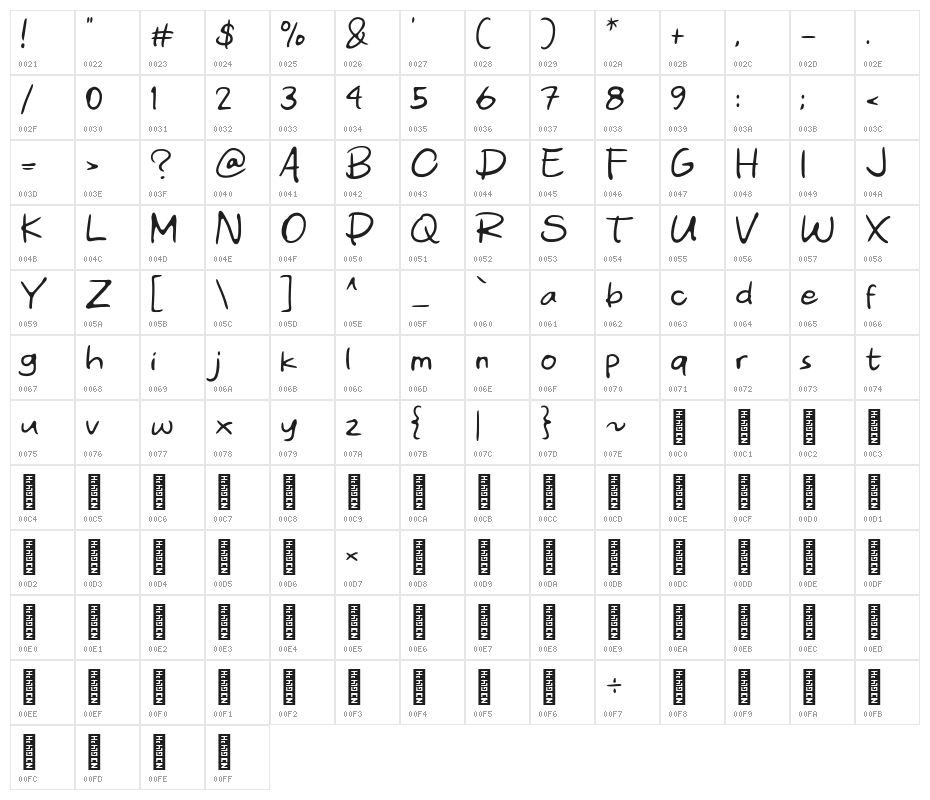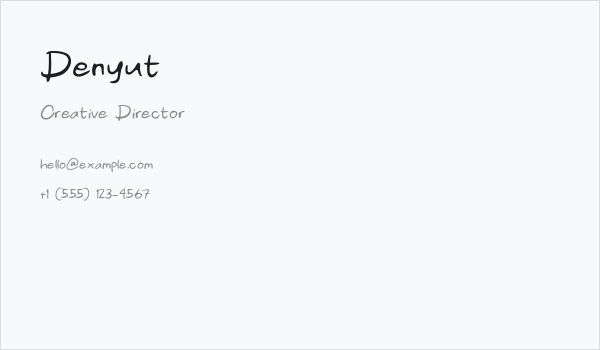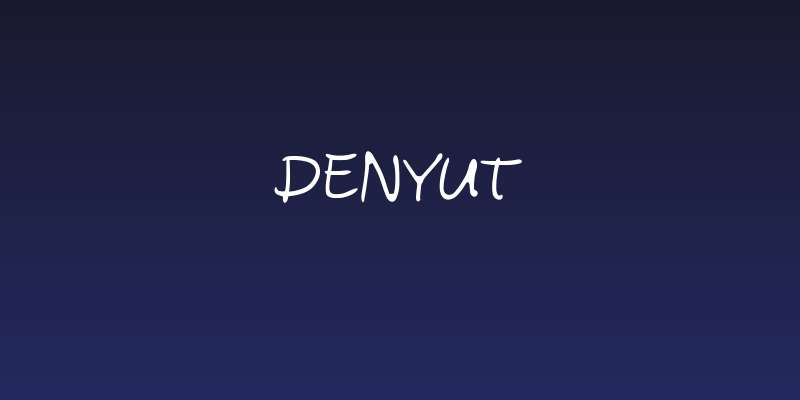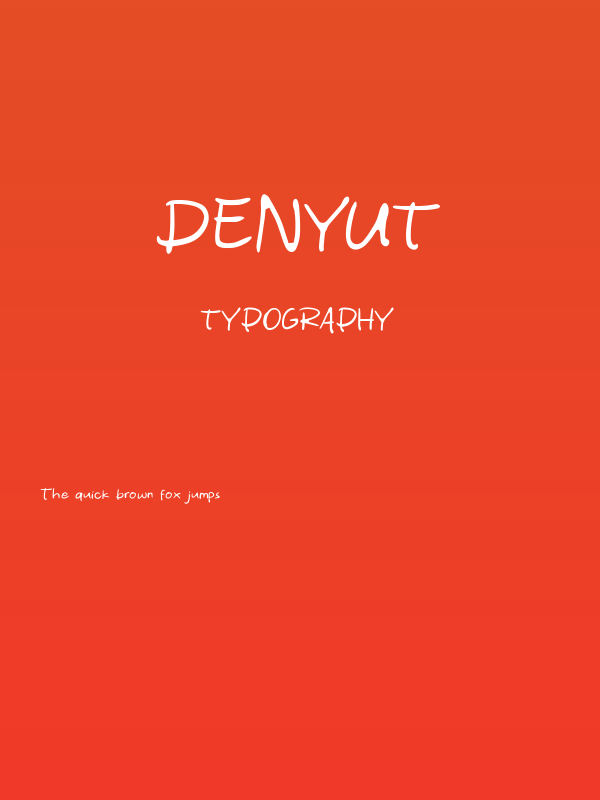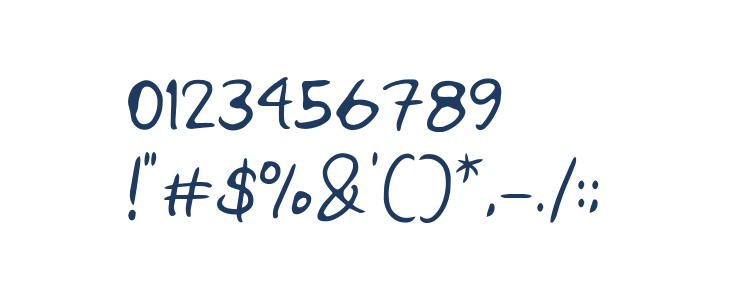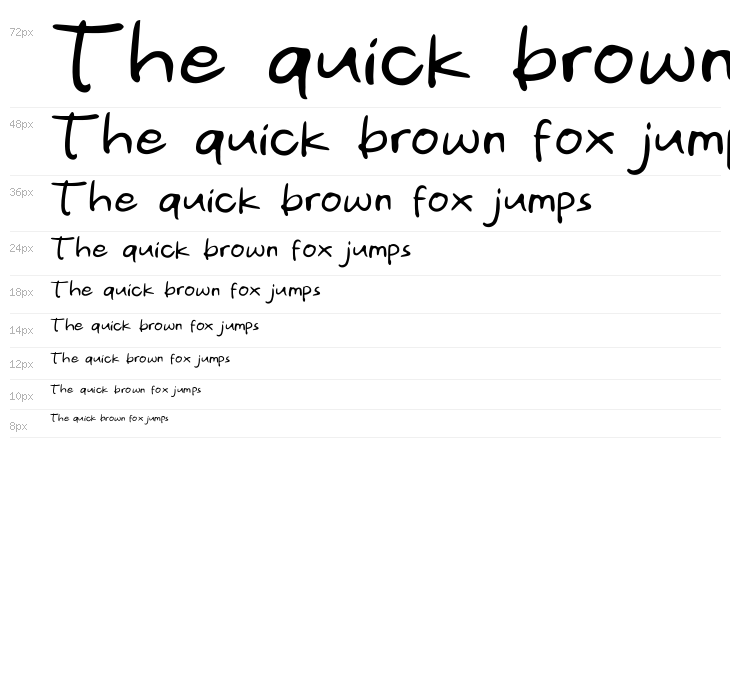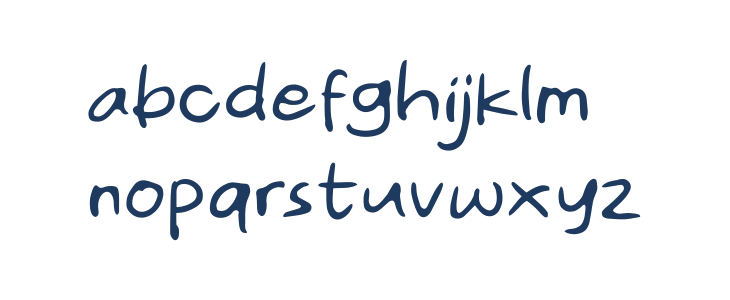
Denyut Font
Denyut Description
This font features a playful and casual handwritten style, characterized by its smooth, flowing lines and slightly irregular shapes. The letters have a natural, organic feel, with varying stroke widths that add a sense of movement and personality. The uppercase letters are bold and confident, while the lowercase letters maintain a friendly and approachable appearance. The numerals and special characters are consistent with the overall style, ensuring a cohesive look across all text. This font is ideal for projects that require a personal touch, such as invitations, greeting cards, or creative branding.